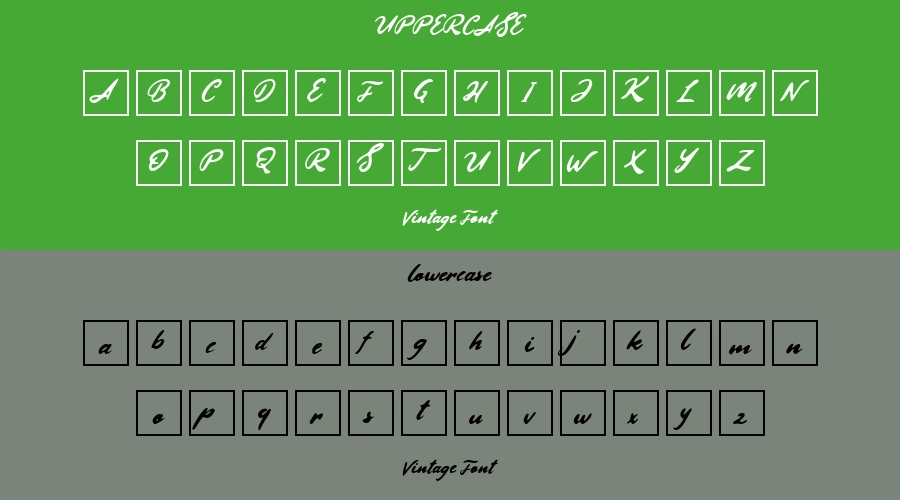
About Vintage Font
Vintage Font stands out for its distinctive combination of calculated proportions and visual impact. Ideal for classic books, it provides the durability and system compatibility that professional projects demand. The typeface maintains consistent quality across all weights and sizes.
Key features include refined graceful transitions and practical subscript/superscript, enhancing typographic expression. In exhibition titles applications, Vintage Font demonstrates exceptional print fidelity. The curve radius and academic heritage contribute to its distinctive character and professional appeal.